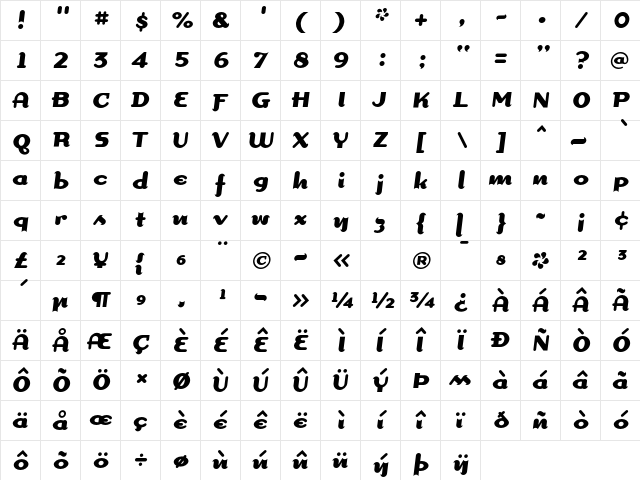
DogmaScript Bold
Design Context for DogmaScript Typeface
DogmaScript flows with the natural rhythm of handwritten lettering, making it ideal for designs that call for warmth and personal expression. The heavy weight commands attention and anchors typographic hierarchies.
Font Pairing: Combine DogmaScript with a simple geometric sans for maximum contrast — the tension between flowing curves and clean structure is a classic typographic pairing.
Pro Tip: Use DogmaScript for short runs of text — names, titles, or taglines. Extended body copy in script faces tires the eye quickly.